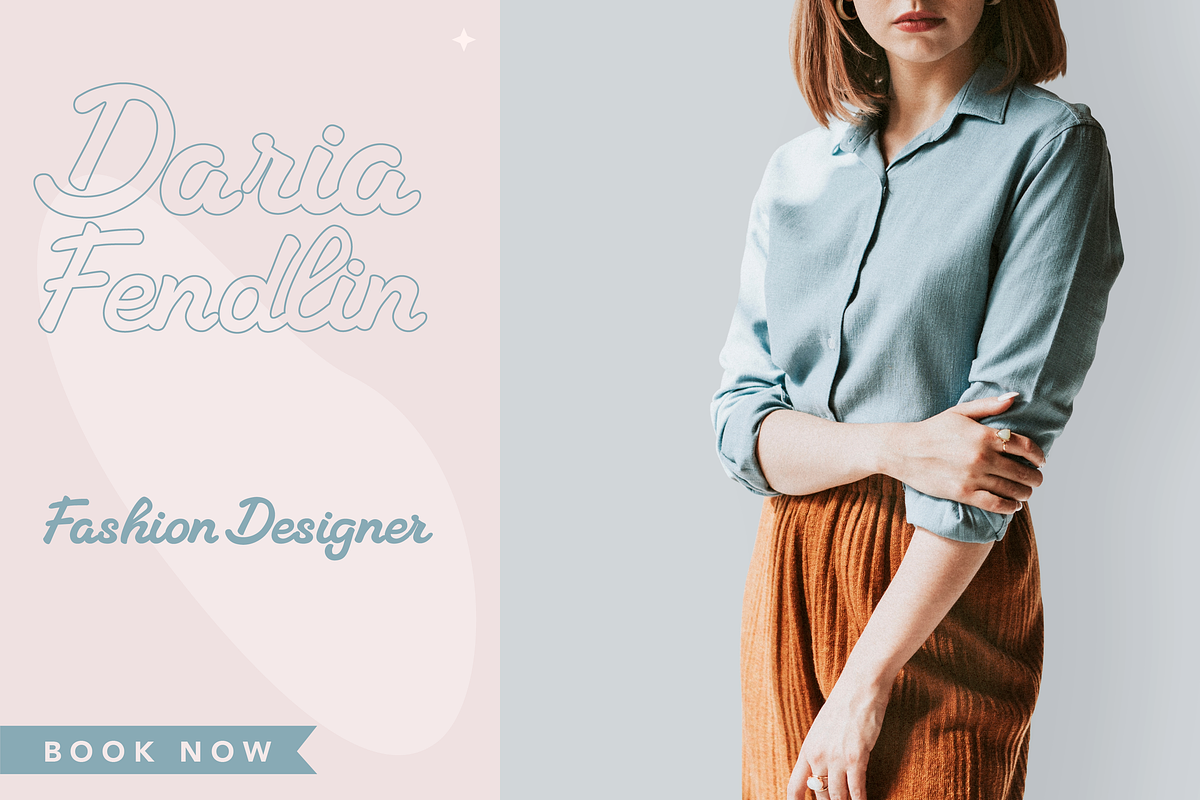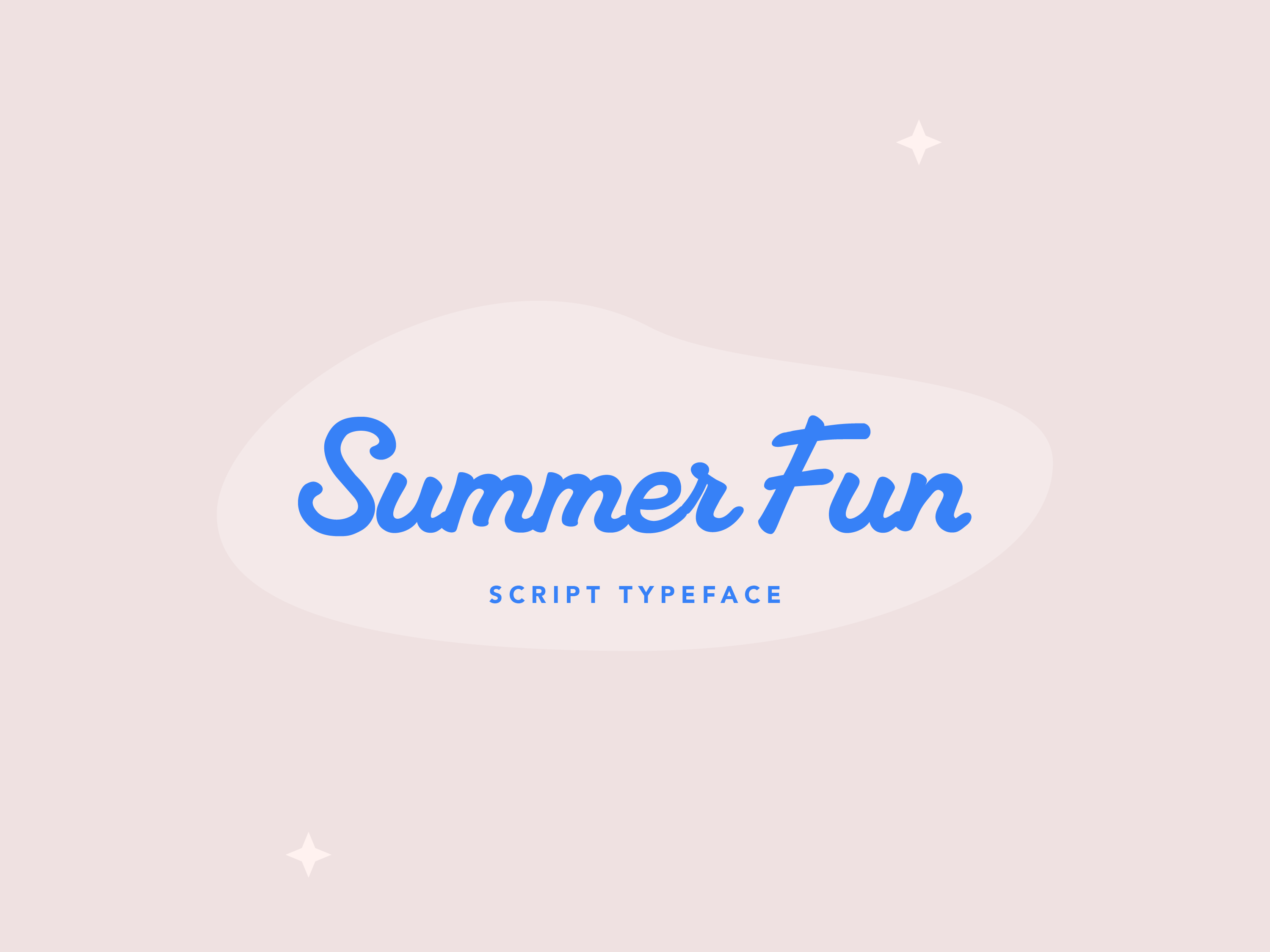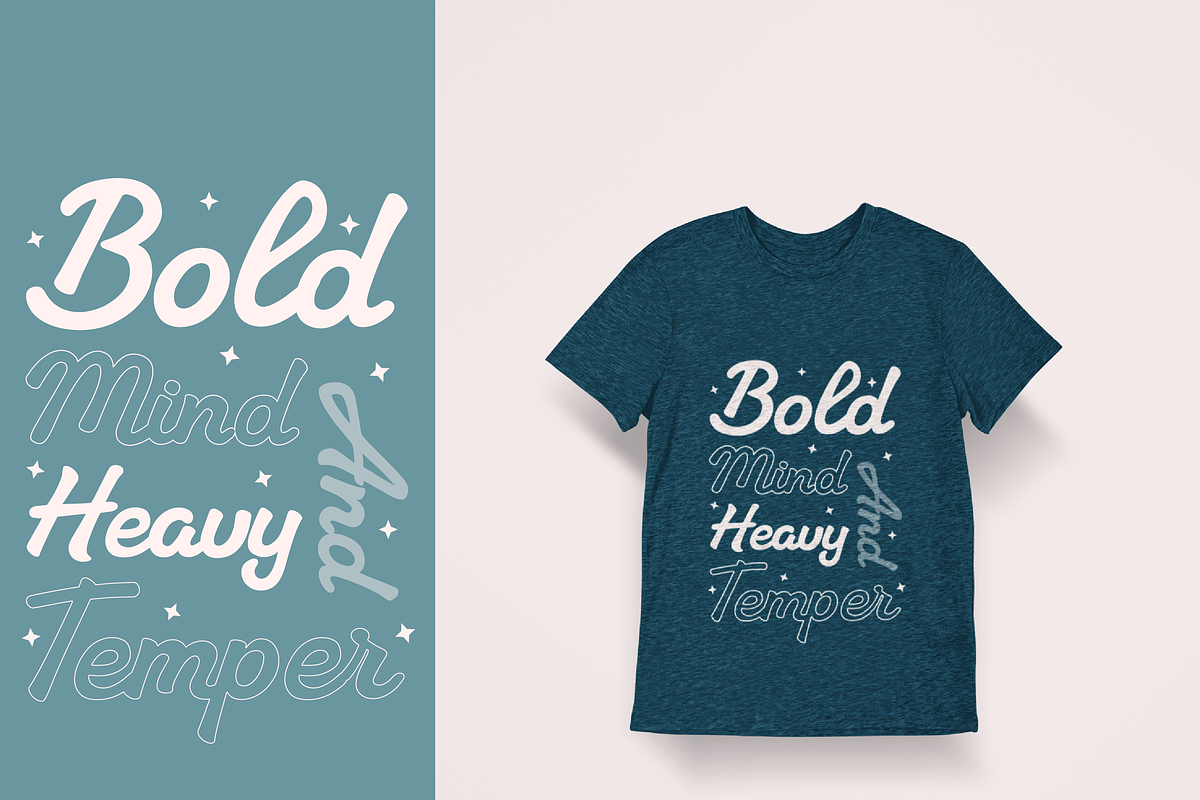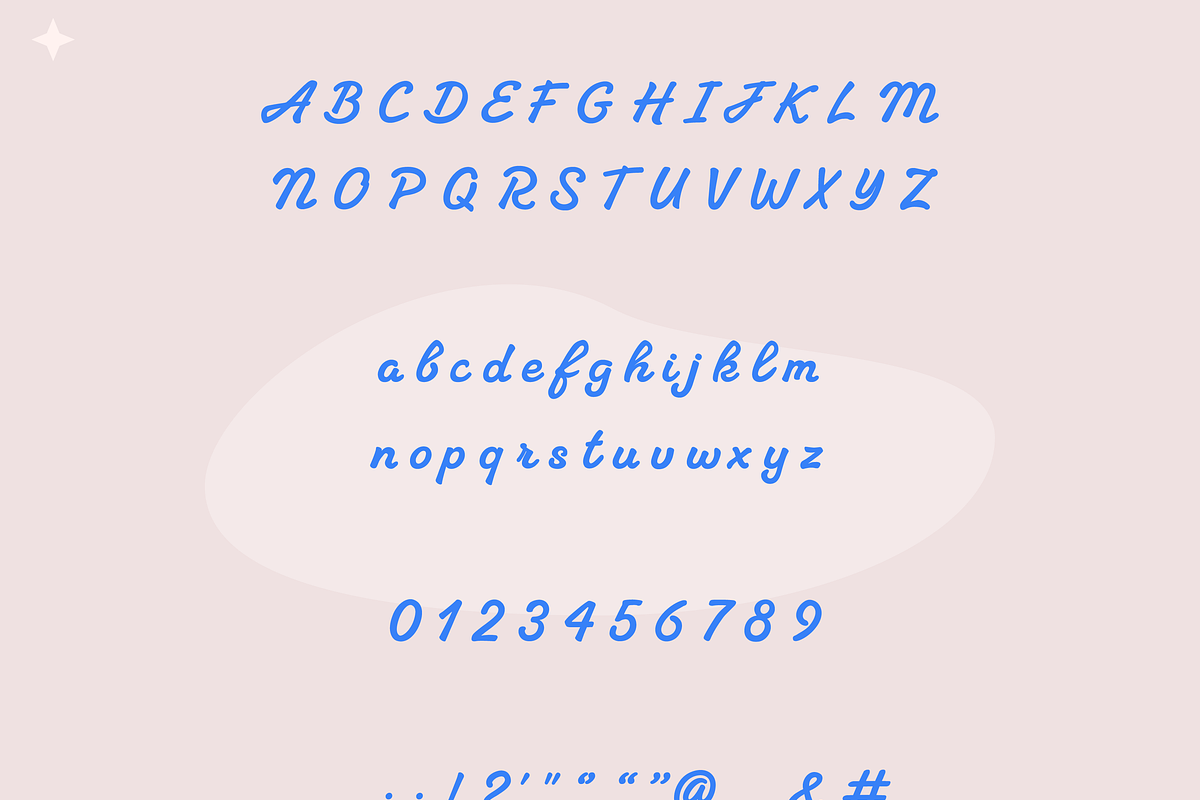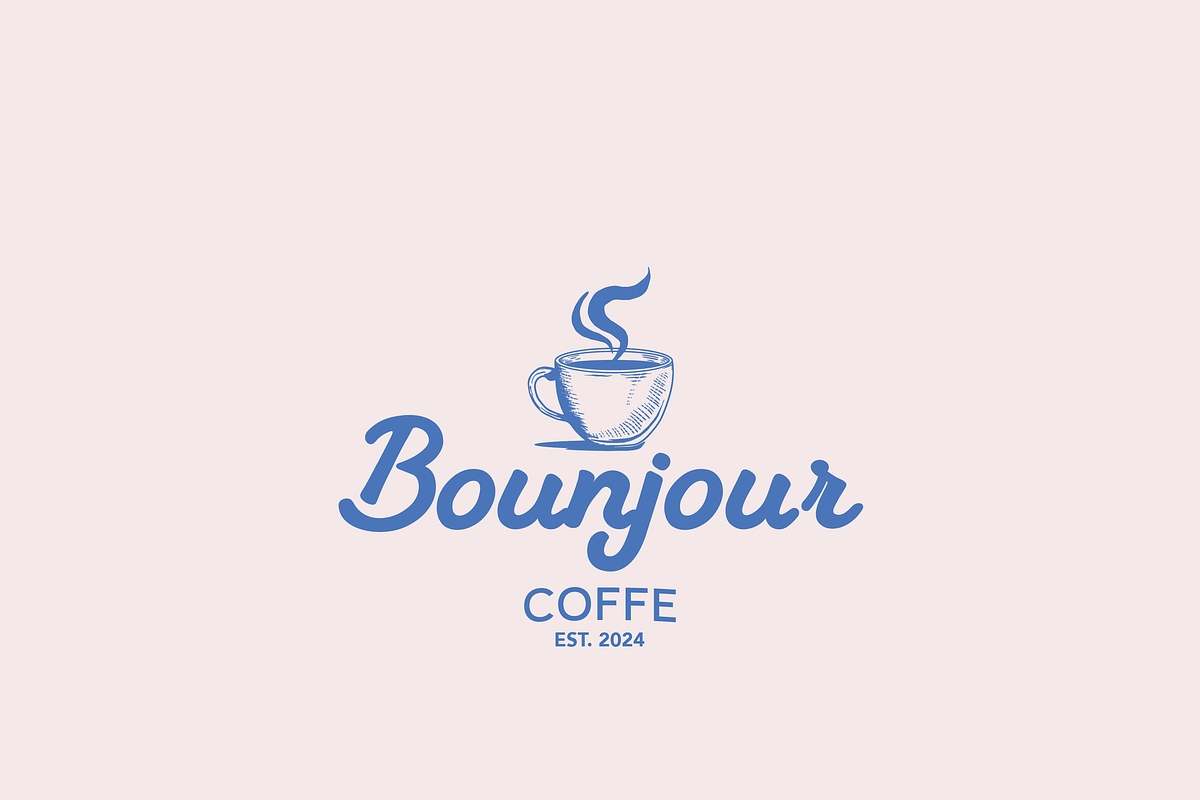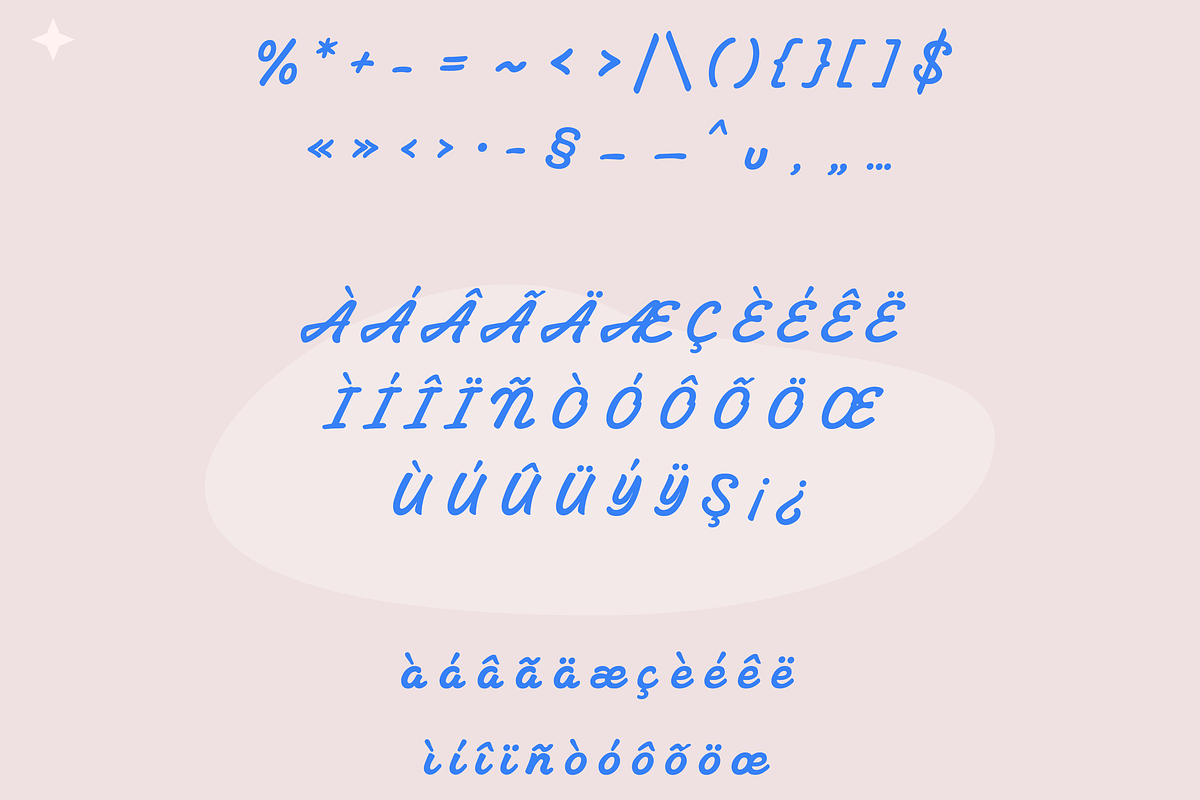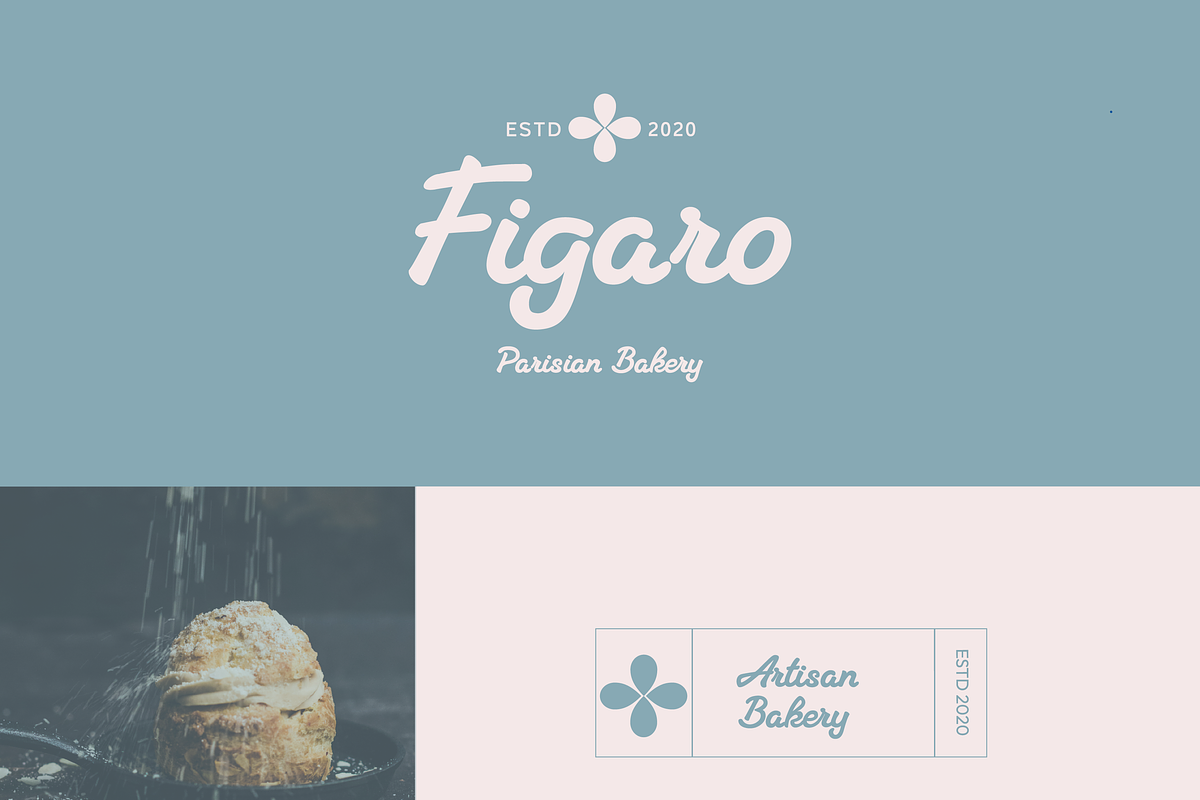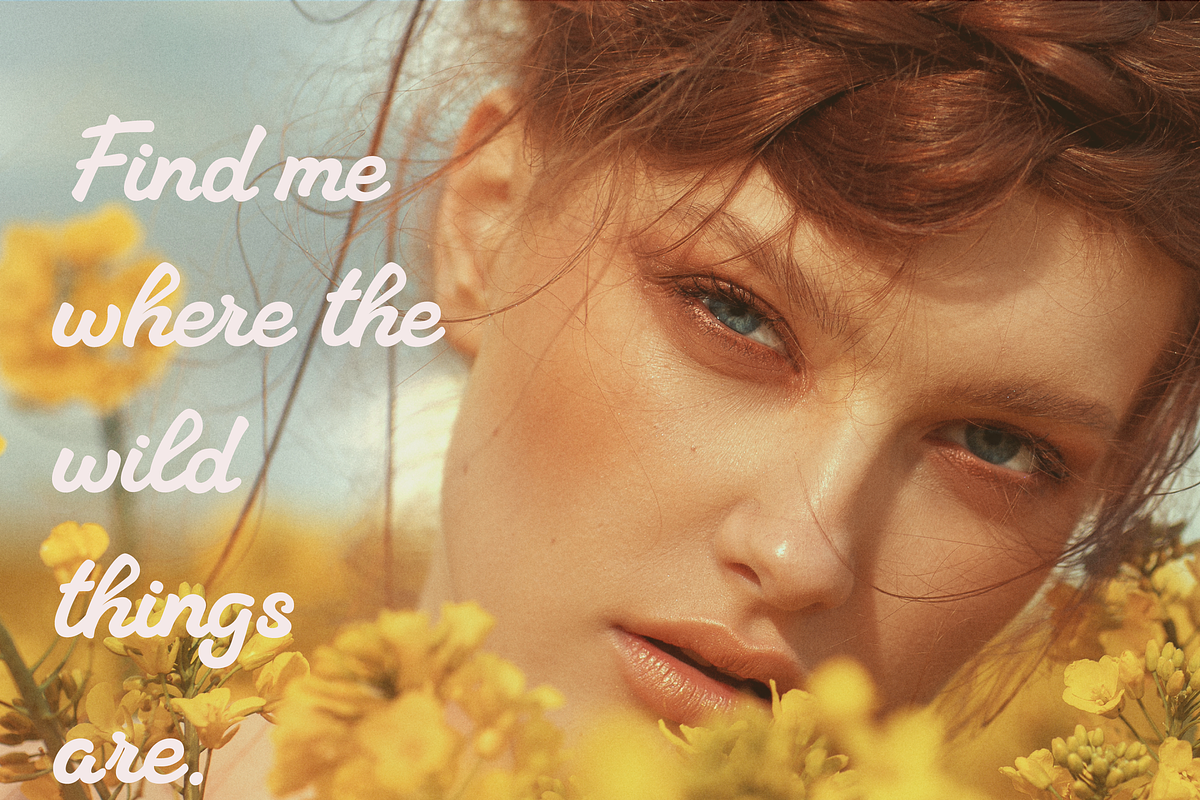
Summer Time Font | Handwritten Scrip
SummerFun is a lively handwritten font that embodies the carefree spirit of summer and adventure. With its relaxed, flowing strokes and playful, bouncy characters, this font radiates a fun, laid-back vibe, perfect for capturing the essence of beach days, sunny getaways, and outdoor escapades. Its casual, free-flowing design makes it ideal for projects that need a touch of whimsy and energy, such as vacation-themed designs, invitations, posters, and more.